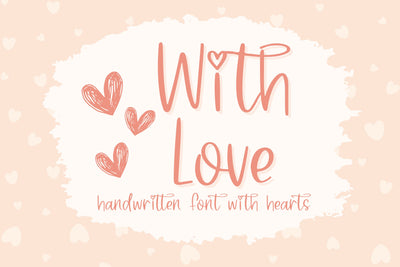
With Love, Cute Handwritten Font For Cricut, Heart Handwriting for Valentines Day
Introducing With Love, our cute handwritten script font for Cricut & more, perfect for all your creative projects! Whether you're a Cricut enthusiast or simply looking for a charming cursive font for Valentine's Day decor, this handwriting font brings a delightful touch to invitations, greeting cards, and personalized crafts. Our script font is compatible with Cricut SVGs, Goodnotes, Procreate, and many other programs. Transform your designs into stunning works of art with our versatile this handwritten font with Hearts the ultimate choice for anyone seeking a captivating and expressive typeface for their projects.